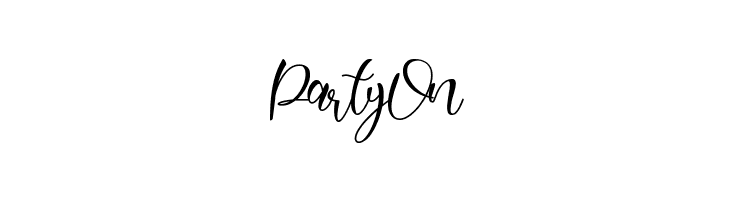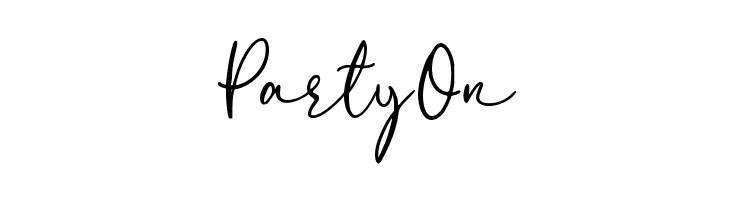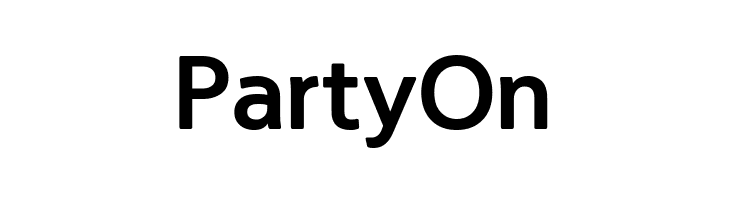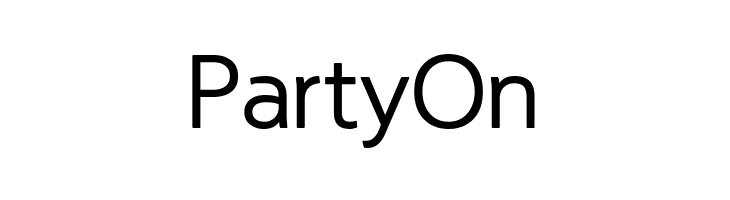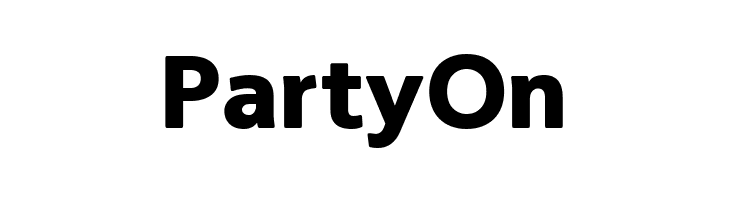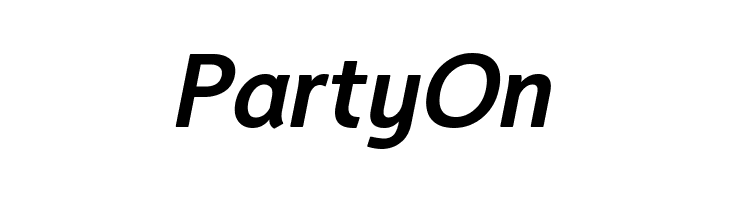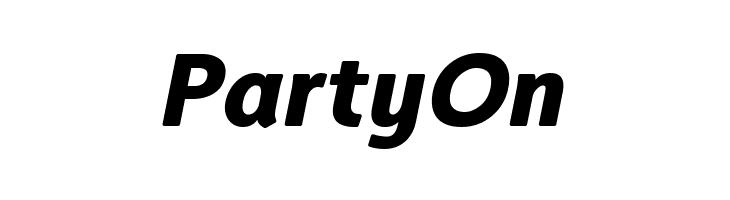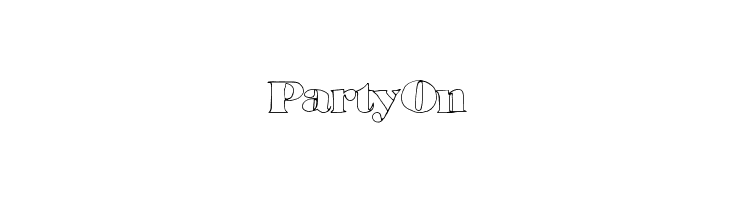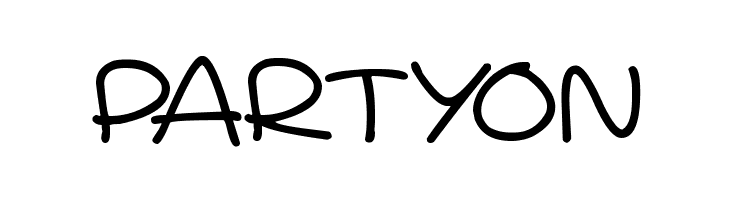
• Love You Angel
• lovelova
A charming and elegant handwritten font with fluid, cursive strokes.
• Lovely Coffee
A charming and elegant script font with fluid, graceful strokes.
• Lovestreet Script Signature
A charming and elegant script font with fluid, connected letterforms.
• LowerHaight
An artistic outline font with bold, geometric uppercase and softer lowercase letters.
• LT Asus
• LT Asus Bold
A bold, modern sans-serif font with clean lines and balanced spacing.
• LT Asus Bold Italic
A bold and italic font with a modern, dynamic style.
• LT Asus Heavy
A bold, robust font with thick strokes and strong presence.
• LT Asus Heavy Italic
A bold, italic font with dynamic and energetic styling.